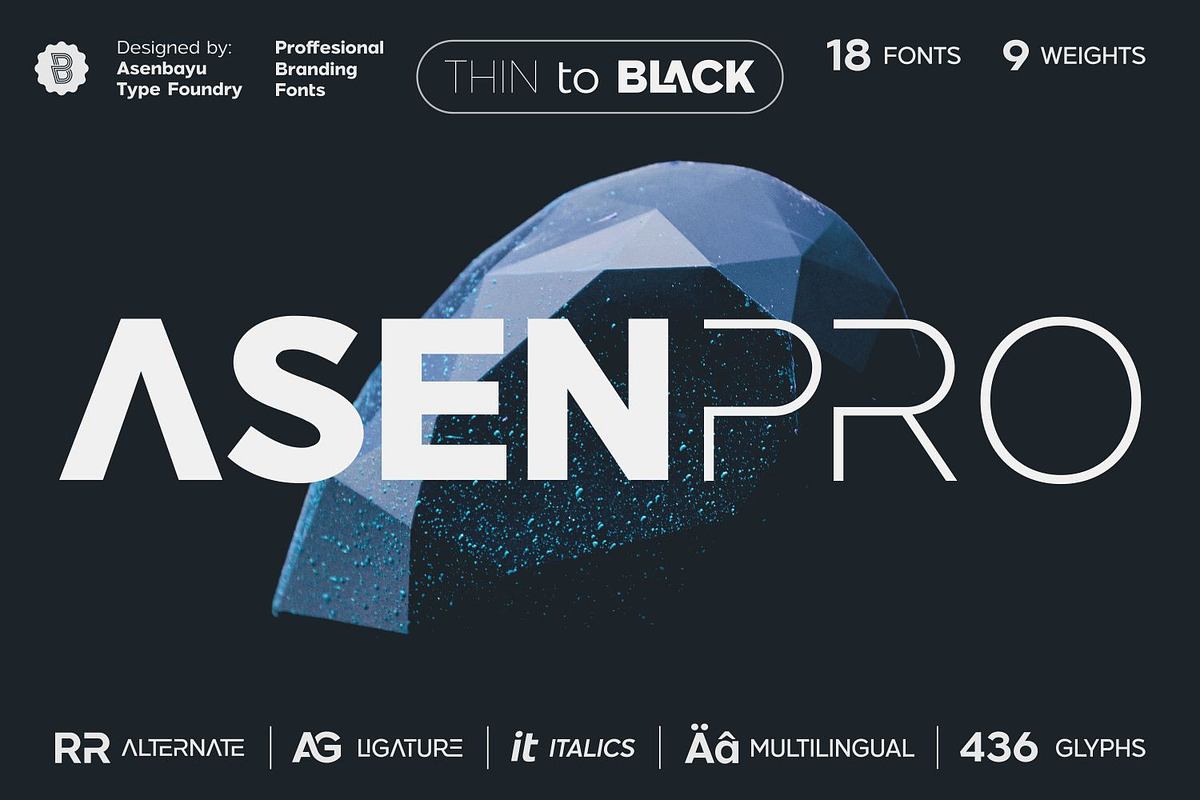
Enhance your design projects with the Asen Pro Font Family, a modern and professional typeface comprising 18 distinct fonts. This versatile family strikes a perfect balance between formal and casual styles, making it suitable for various applications such as branding, logo design, posters, social media graphics, and website content.
Features:
• Comprehensive Font Selection: The family includes 18 fonts, ranging from Thin to Black weights, offering a wide range of options for different design needs.
• Stylistic Variations: With numerous stylistic alternates and ligatures, Asen Pro allows for creative and personalized typography.
• Multilingual Support: The fonts support multiple languages, ensuring global applicability.